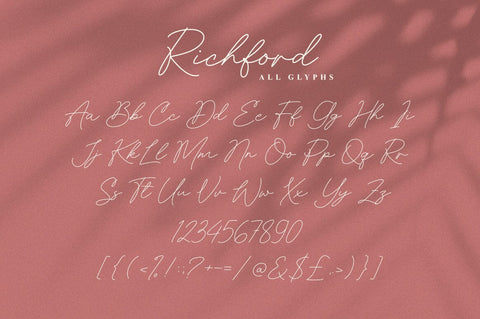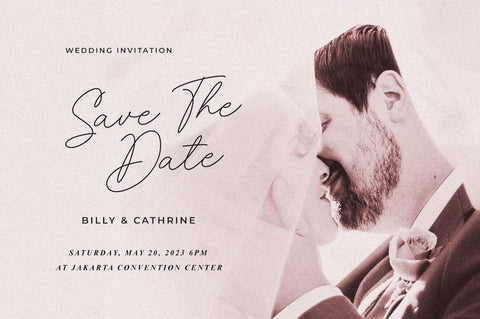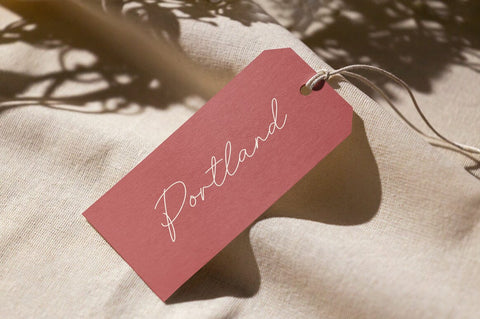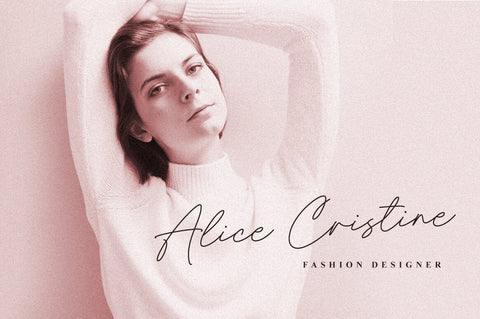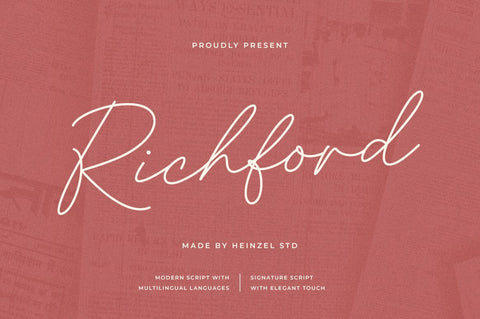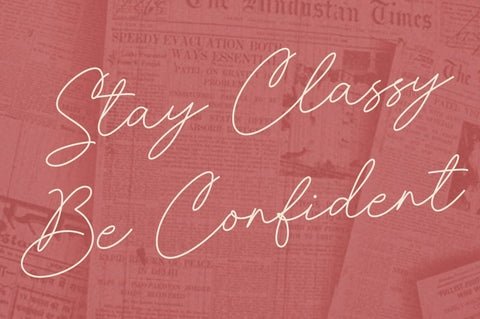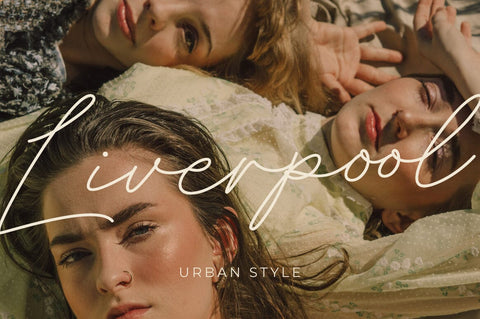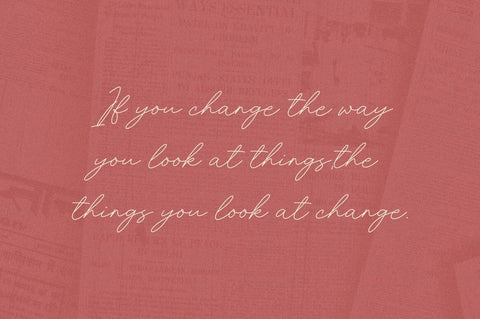
Richford Signature Font
Introducing Richford Font, a sophisticated signature typeface that adds an air of elegance to your design projects. With its refined letterforms and impeccable strokes, Richford Font is the perfect choice for creating a personalized and luxurious touch.
Crafted with precision and attention to detail, Richford Font captures the essence of a handcrafted signature. Its fluid curves and distinctive flourishes create a sense of exclusivity and sophistication, making it ideal for branding, logos, wedding invitations, and more.
Richford Features:
- Regular Version
- Numerical and Punctuation
- Alternates and Ligatures
- Multilingual Language